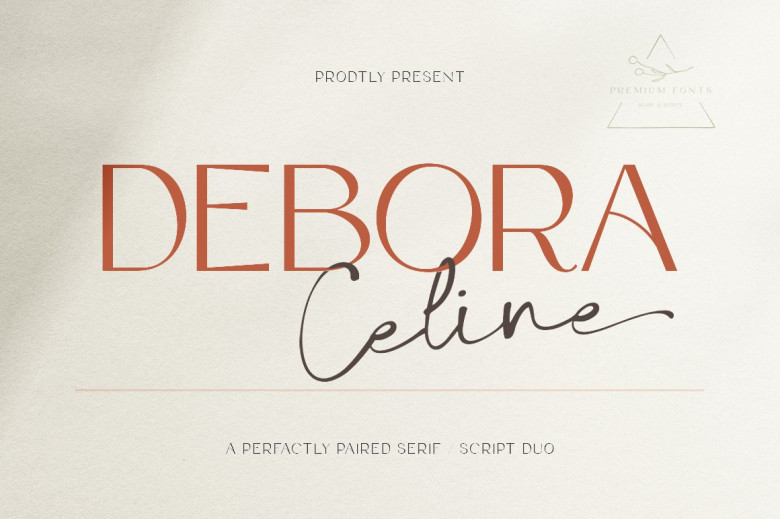
Debora Celina Font
Presenting Debora Celina Font Duo Script and Serif is a simple and unique looking font. It is a customizable font that will look perfect on your Christmas theme, valentines, posters, invitations, weddings, branding projects, social media posts, etc. will bring a playful and friendly mood to all your designs.
Debora Celina Font Duo